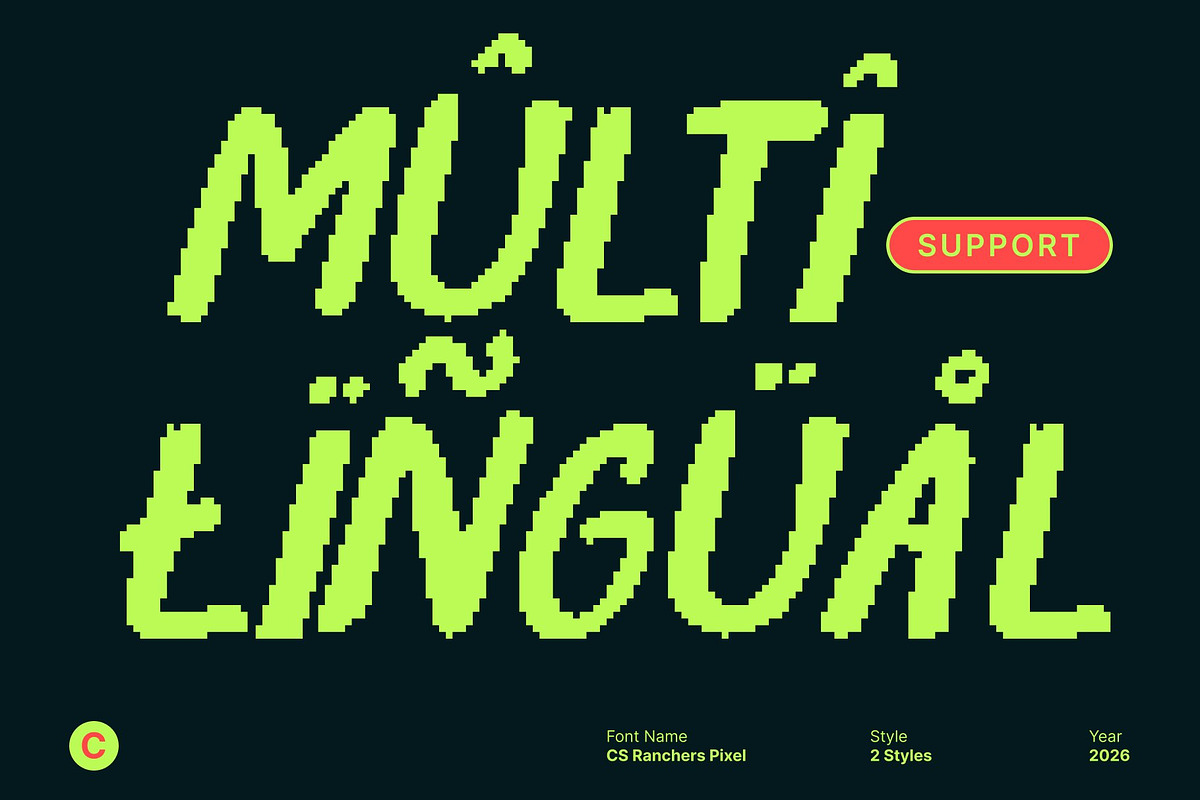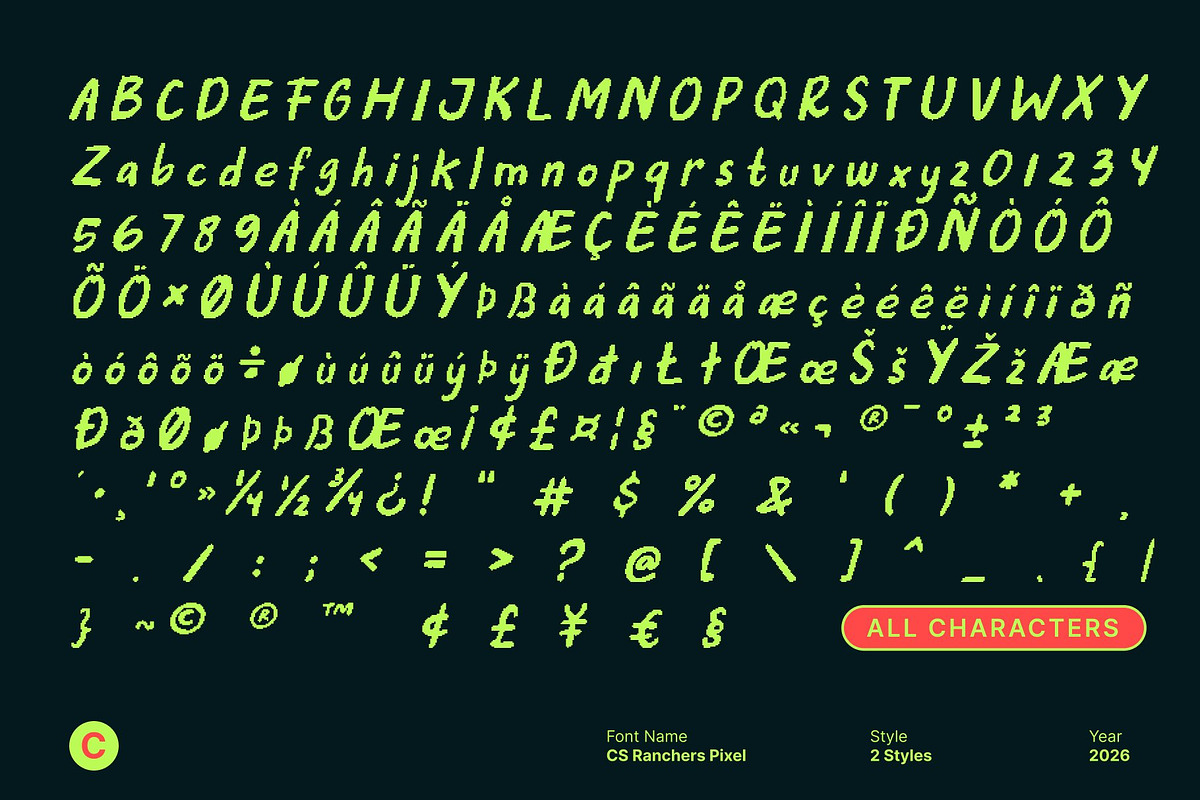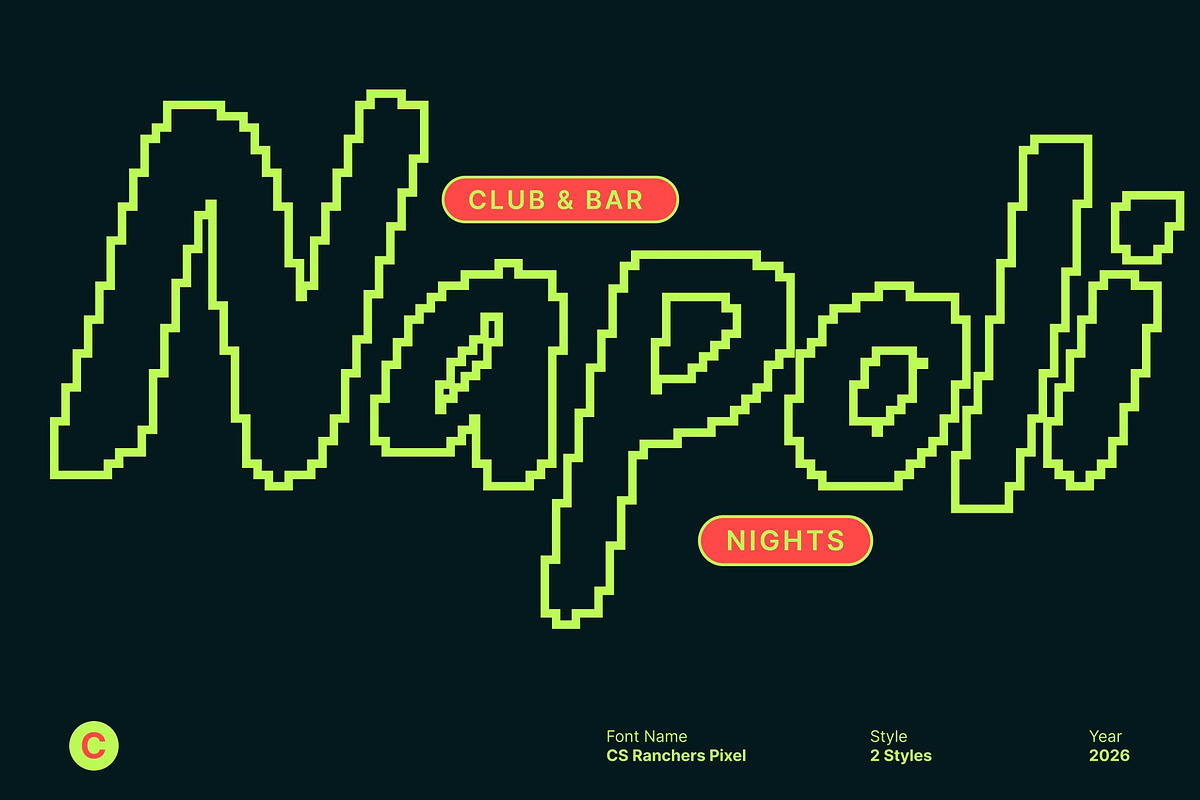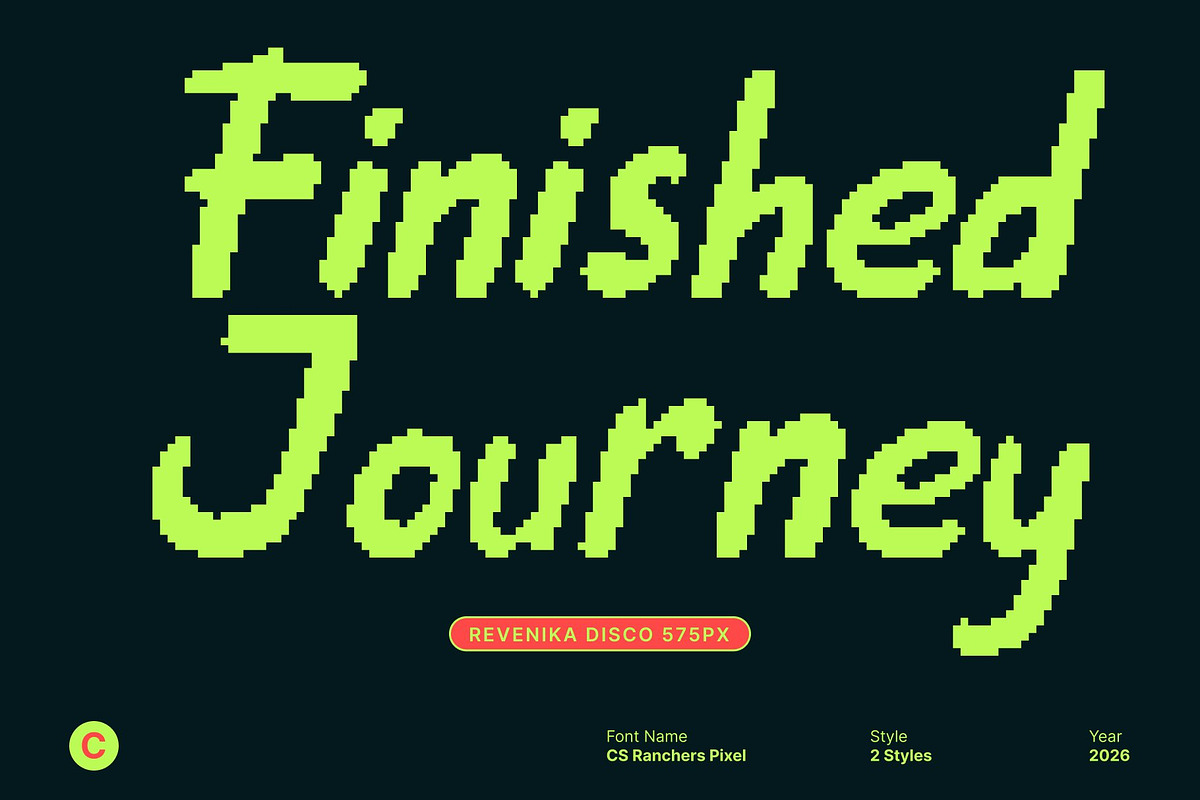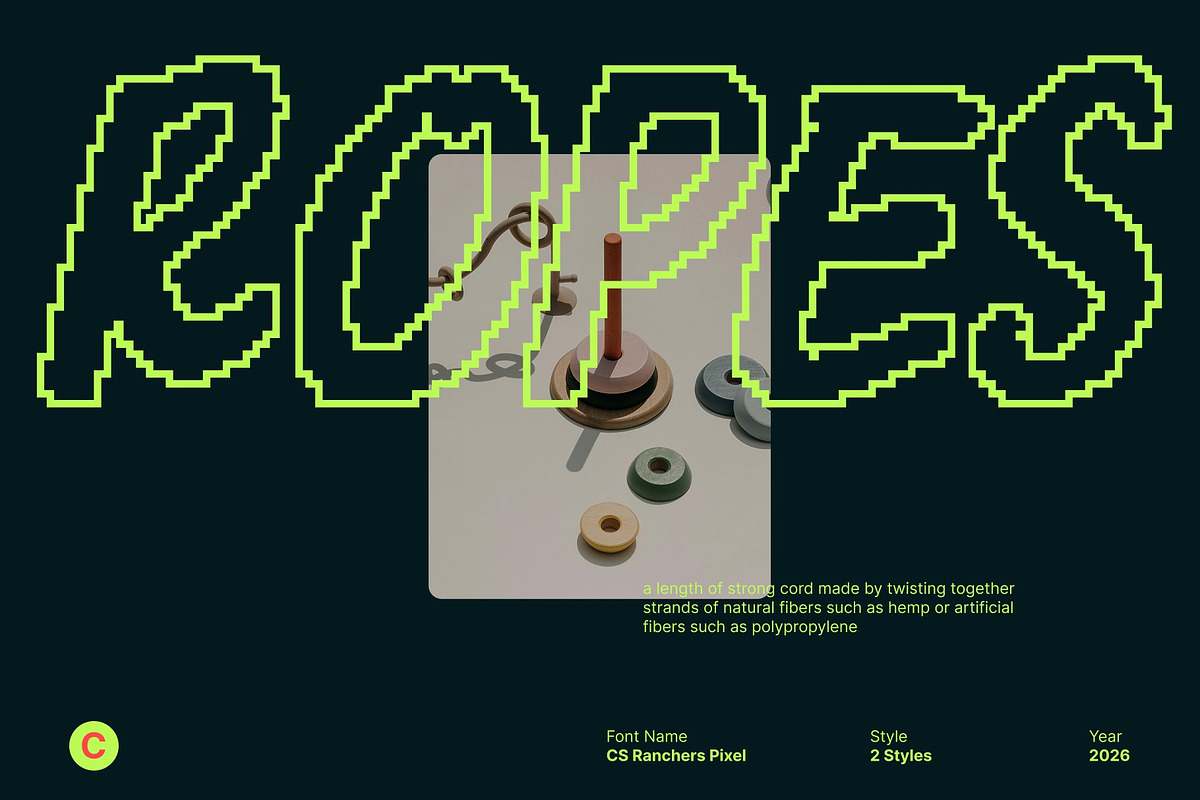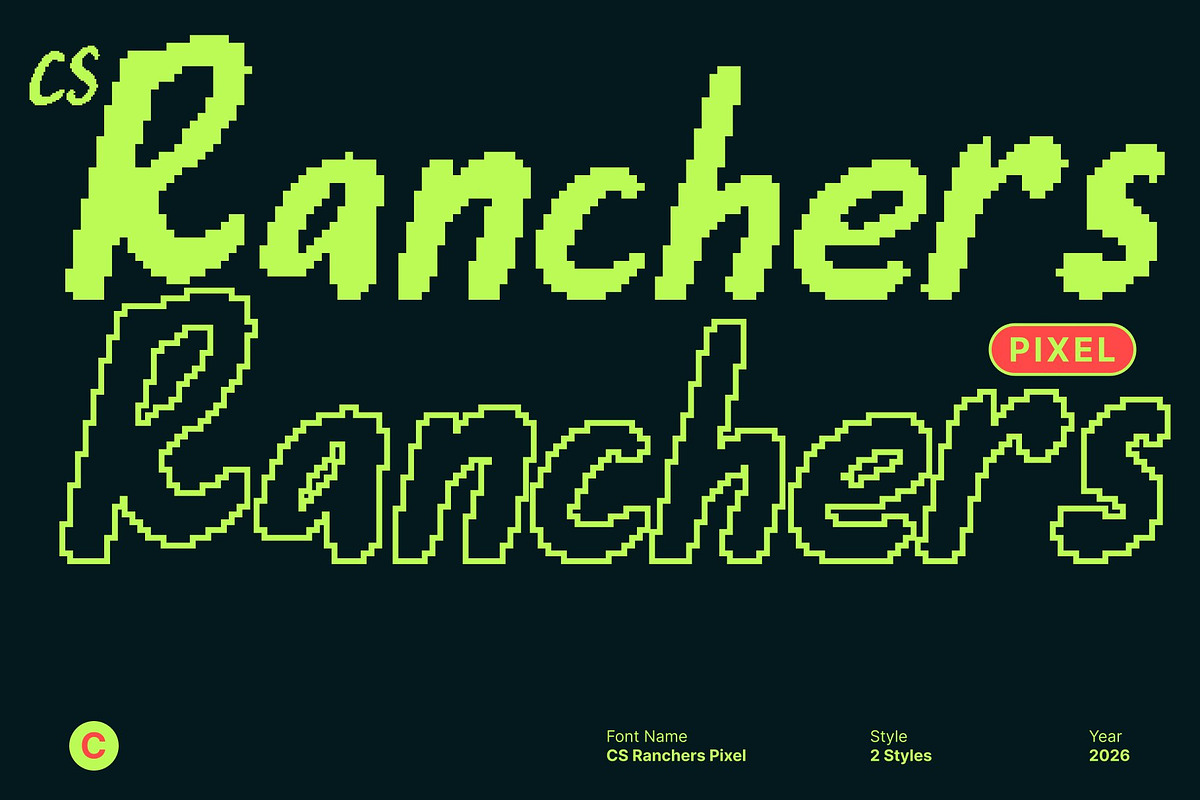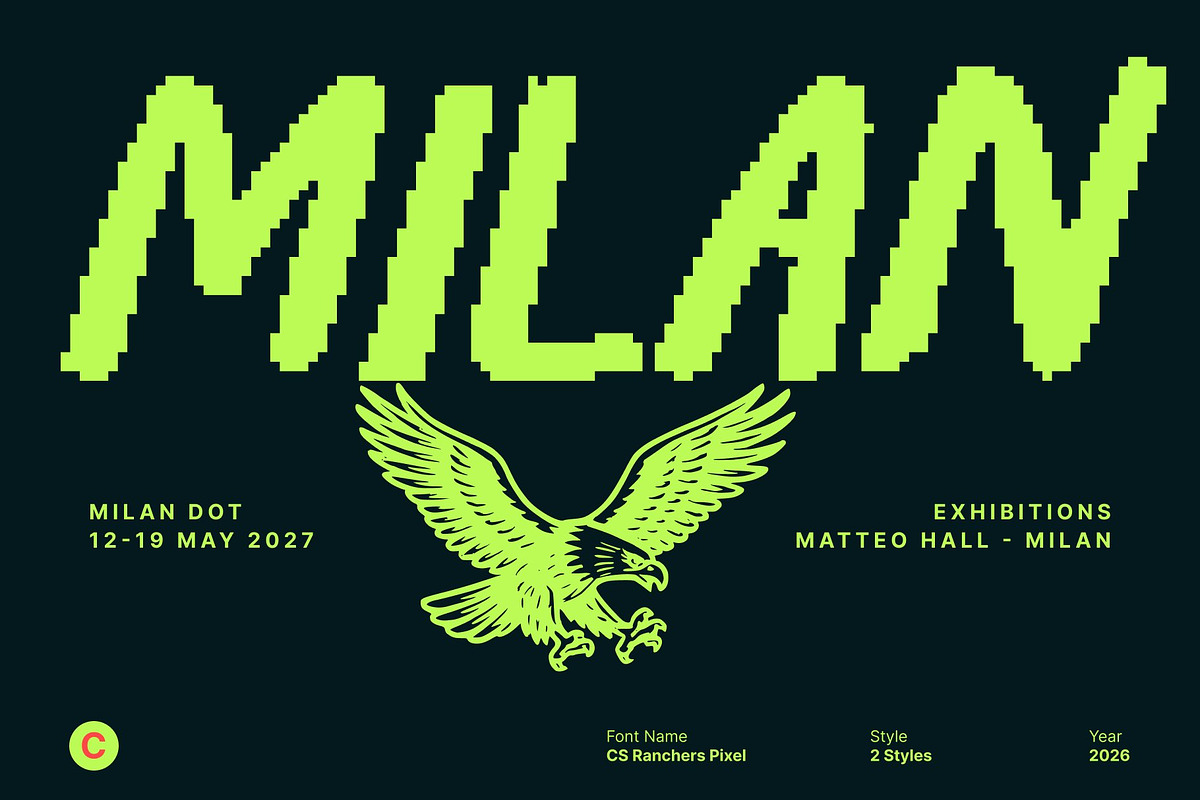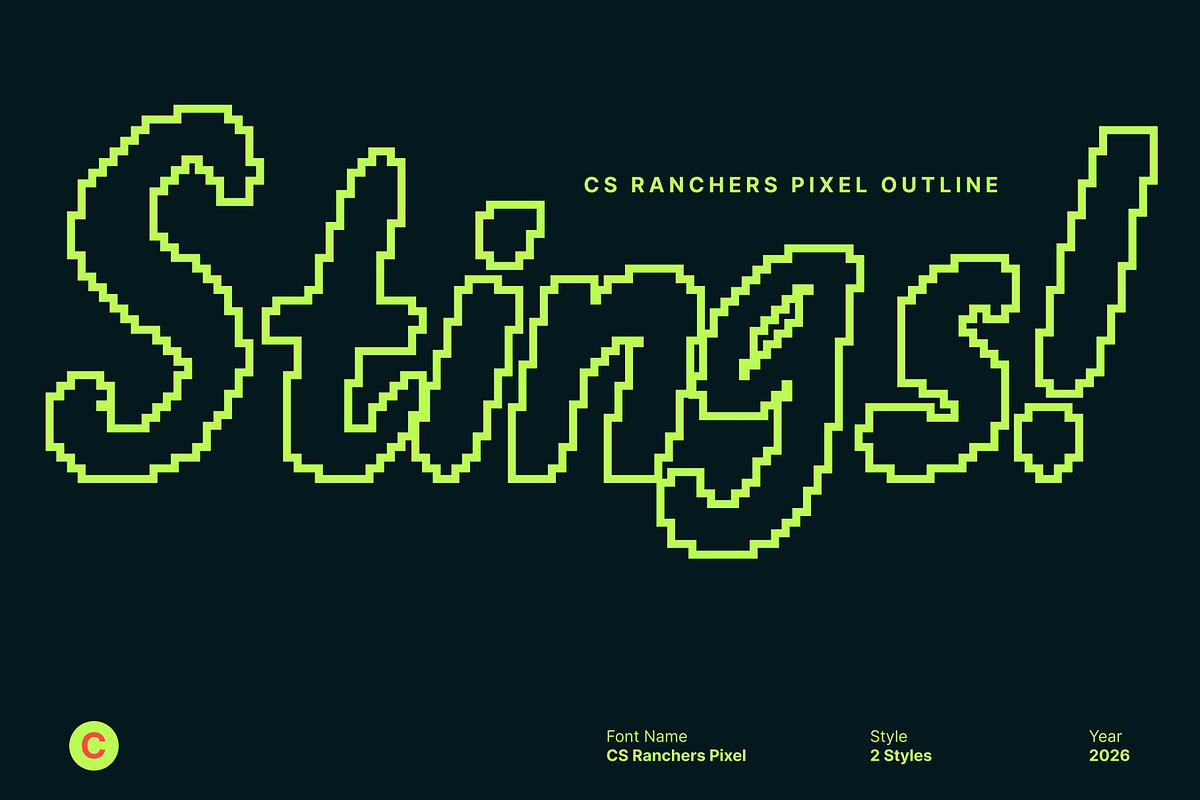
CS Ranchers Pixel
CS Ranchers Pixel – Expressive Brush Display with Digital Hand-Brushed Texture
Hand-Brushed Expression Meets Pixel Attitude This is an expressive brush display font that captures the raw beauty of natural hand-brushed lettering, reimagined through a distinctive pixel style. The energetic brush strokes retain their organic movement while gaining a bold digital edge, creating a font that feels handcrafted yet perfectly suited for screen-based design and retro-tech aesthetics.
Organic Brush Texture with Pixel Character Each letter appears as if painted by hand, then translated into crisp pixel forms that add structure and visual punch. This combination brings depth, texture, and authenticity while evoking early digital art, retro displays, and old-school creative technology. The pixel construction enhances clarity on screens while preserving the emotional warmth of brush lettering.
Expressive, Artistic, and Visually Powerful The bold brush motion gives this font strong personality and movement, making it ideal for expressive headlines and impactful compositions. The pixel treatment amplifies its visual rhythm, ensuring every word feels dynamic, artistic, and eye-catching perfect for designs that aim to feel bold, creative, and modern with a nostalgic edge.
Perfect for Digital Art, Retro Graphics, and Creative Branding This font shines in digital artwork, illustrations, posters, branding, music visuals, games, and creative lettering projects. Its fusion of hand-brushed energy and pixel precision makes it especially effective for digital screens, retro-inspired visuals, and expressive modern design, turning any project into a vibrant, character-rich statement.
- CS Ranchers Pixel Regular
- CS Ranchers Pixel Outline